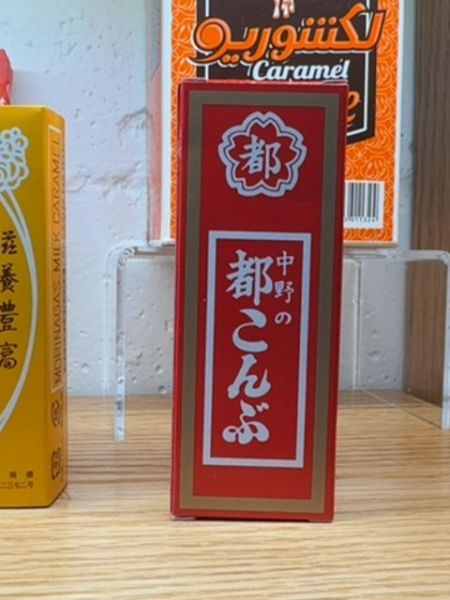
都こんぶ (Miyako Kombu)
A traditional Japanese snack made from kelp seaweed, known for its savory taste and chewy texture.
The typography uses a traditional Japanese brush style with thick and dynamic strokes, creating a sense of authenticity and cultural heritage. The fonts are bold and easily legible against the contrasting red and white background, enhancing readability and visual impact.
The packaging features a bold red base color, which is vibrant and eye-catching. It has a central panel with white Japanese characters framed in gold, giving it a traditional and elegant appearance.
- Kelp is a staple in Japanese cuisine for its umami flavor.
- Often enjoyed as a healthy snack rich in minerals.
- Packaging design reflects traditional aesthetics.